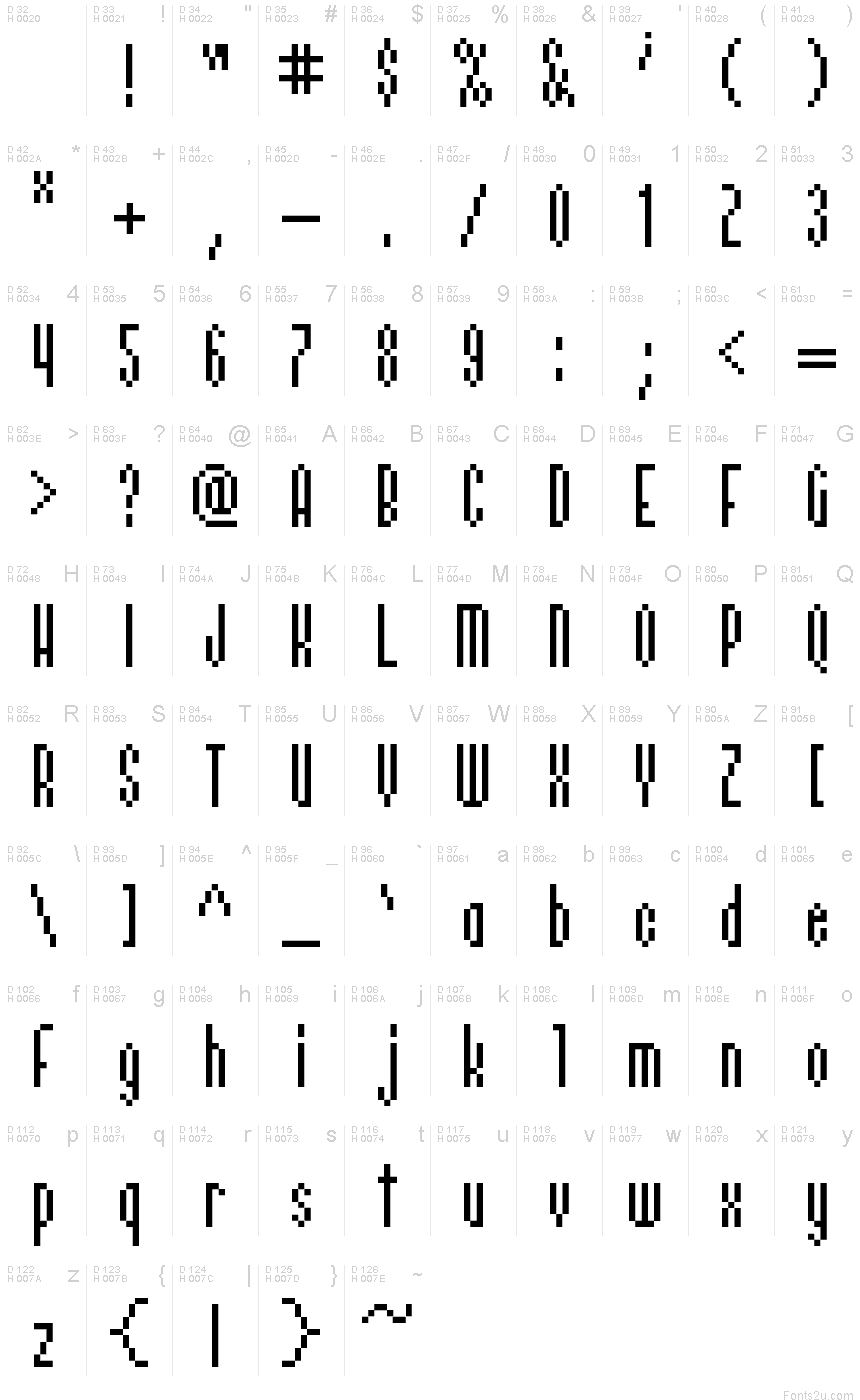
Relativity-Thin-Short
Pixel font inspired by the logo design of Relativity (http://www.blacktorrent.us). Full font set, including all basic letters and symbols. 4 fonts in all.
by Mchelle Lehmann a/k/a Mirz